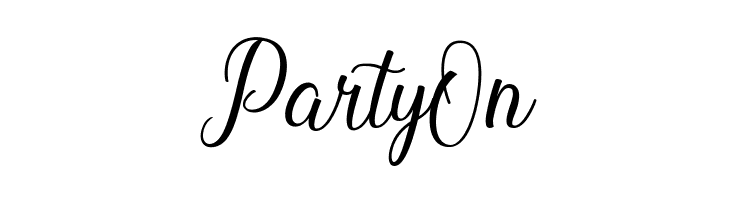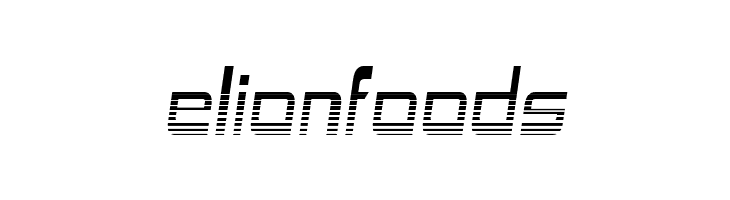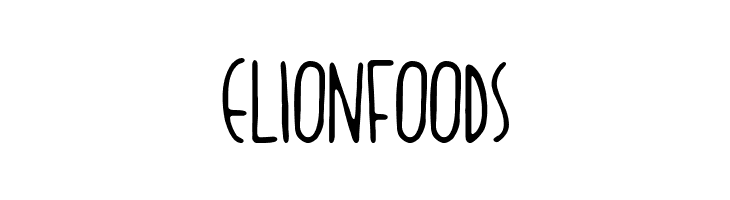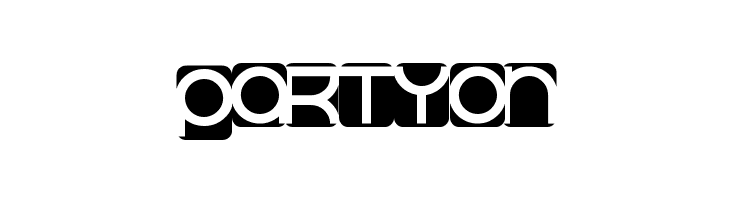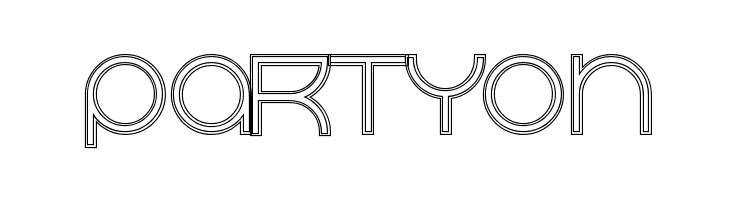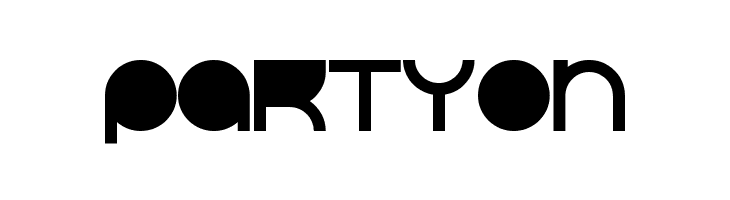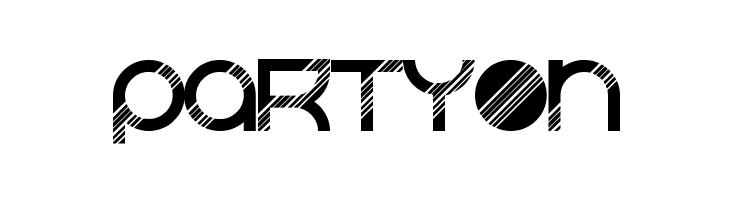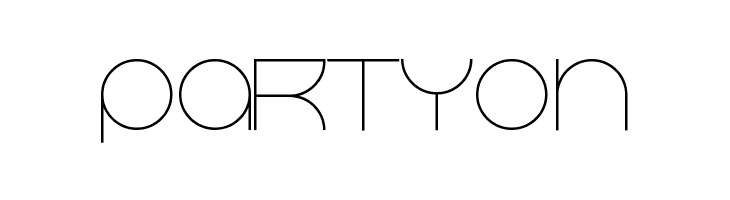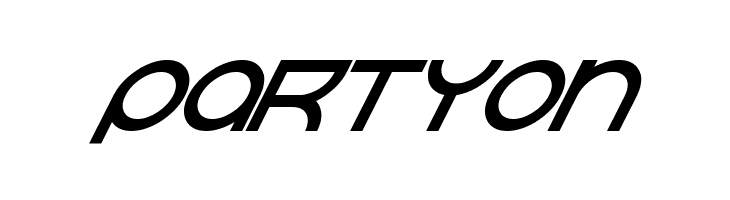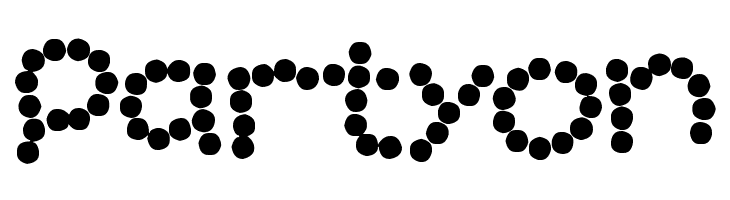
A bold, modern sans-serif font with clean lines and geometric structure.
A modern, wide, and italicized font with bold characters and a sleek design.
A bold, wide outline font with a modern and impactful style.
A bold, wide outline italic font with a modern and dynamic style.
A bold, outlined font with a modern, geometric style.
( Peter de Klerk - valleyofzion.zz.mu )
A modern, geometric sans-serif font with clean lines and balanced spacing.
A bold, expressive brush-style font with dynamic, handcrafted strokes.
A bold, brush-style font with dynamic, hand-painted strokes.
A futuristic, geometric font with double lines and angular shapes.
A geometric, minimalist font with thin lines and sharp angles, offering a modern and futuristic look.
A geometric, hollow, and bold font with angular lines and a futuristic style.
A futuristic, geometric font with a striped, angular design.
A geometric, angular font with a futuristic and modern aesthetic.
A futuristic, geometric font with rounded edges and consistent line thickness.
A futuristic, geometric font with thin lines and sharp angles.
Tall, narrow handwritten sans-serif with playful irregularity.
( Fonts by Darwinoo )
A bold, artistic font with a hand-drawn, whimsical style.
A bold, distressed font with a vintage, industrial style.
A playful, hand-drawn font with a whimsical and dynamic style.
A decorative symbol font blending Celtic, astrological, and mythological imagery.
( Typodermic Fonts - Ray Larabie - www.typodermicfonts.com/ )
A futuristic, angular italic font with a bold and dynamic style.
( Typodermic Fonts - Ray Larabie - www.typodermicfonts.com/ )
A futuristic, geometric font with sharp angles and clean lines.
A futuristic, digital-style font with horizontal line patterns and geometric shapes.
A futuristic, bold, and angular outline font with a dynamic design.
( Fonts by Goma Shin )
A bold, rounded font with a modern and playful style.
A bold, rounded font with a friendly and approachable style.
( Måns Grebäck - www.mansgreback.com )
A flowing cursive font with elegant, connected letters and a handwritten style.
( Typodermic Fonts - Ray Larabie - www.typodermicfonts.com/ )
A modern, italicized font with sleek, angular characters.
( Typodermic Fonts - Ray Larabie - www.typodermicfonts.com/ )
A geometric, modern font with clean lines and a technical feel.
( Typodermic Fonts - Ray Larabie - www.typodermicfonts.com/ )
A modern, italicized font with geometric and angular design.
( Typodermic Fonts - Ray Larabie - www.typodermicfonts.com/ )
A geometric, modern font with clean lines and sharp angles.
( Typodermic Fonts - Ray Larabie - www.typodermicfonts.com/ )
Bold, italic font with angular lines and a dynamic, modern style.